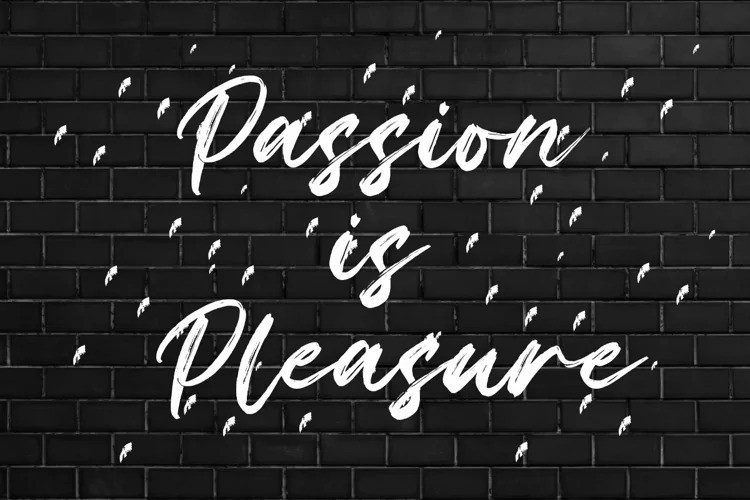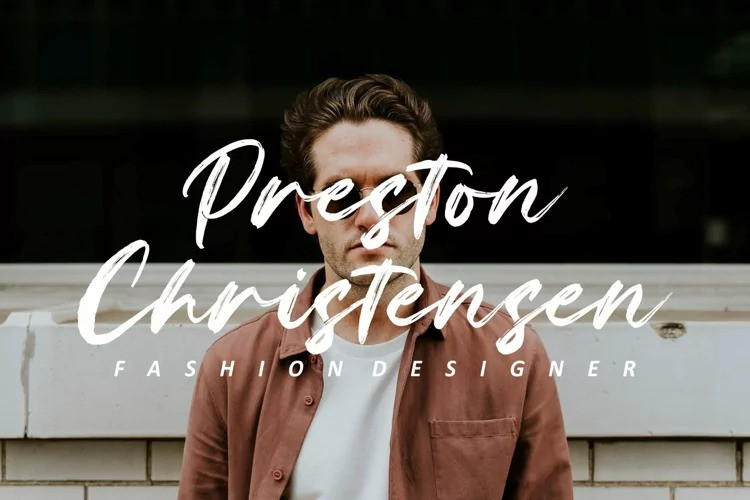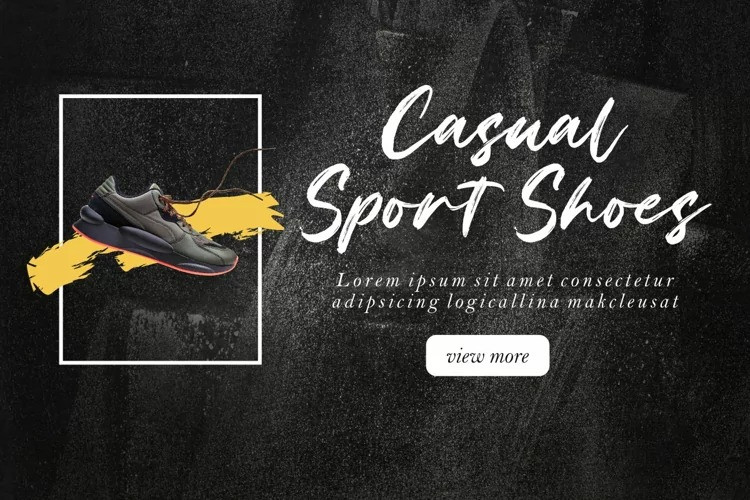
Changer Font
Changer Brush Font
It’s a stylish and delicate script brush font manufactured by fikryal. This font is made in a modern style, casual, strong, elegant, and suitable for your various design needs. it’s perfect for logo, branding, title, social media posts, advertisements, product packaging, product designs, label, photography, watermark, special event, magazine, web design, etc.